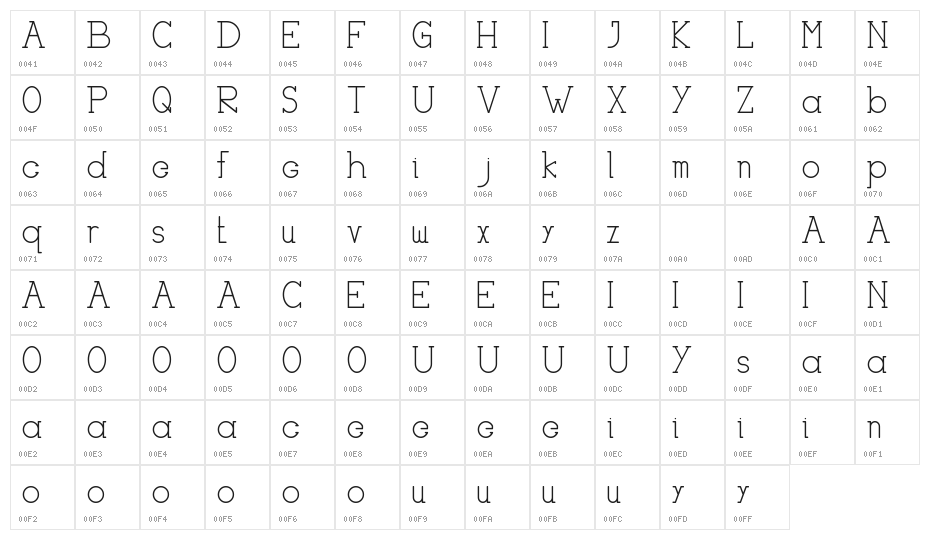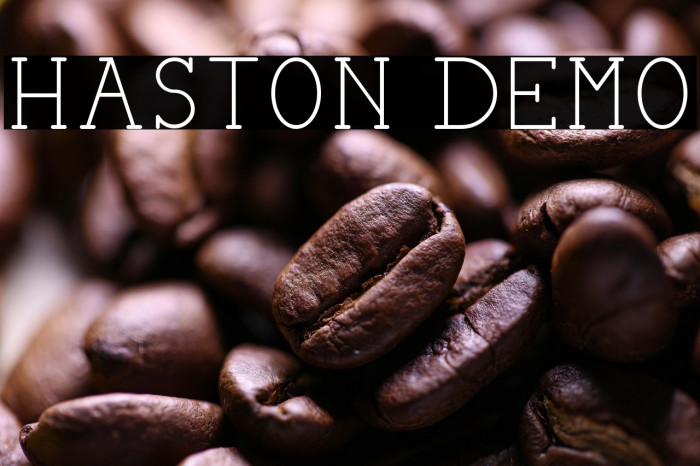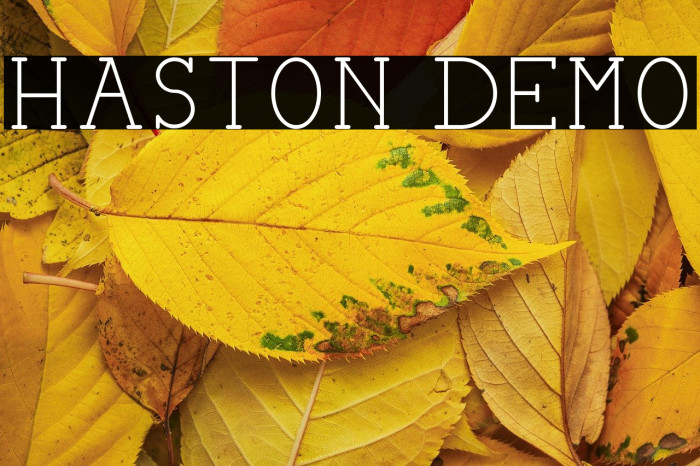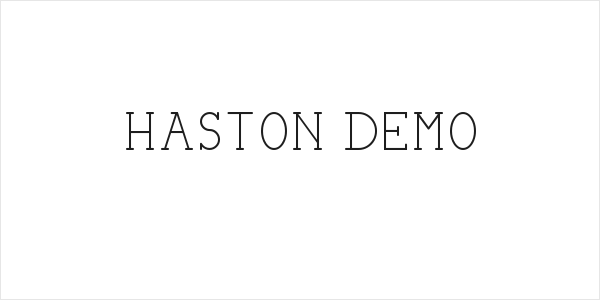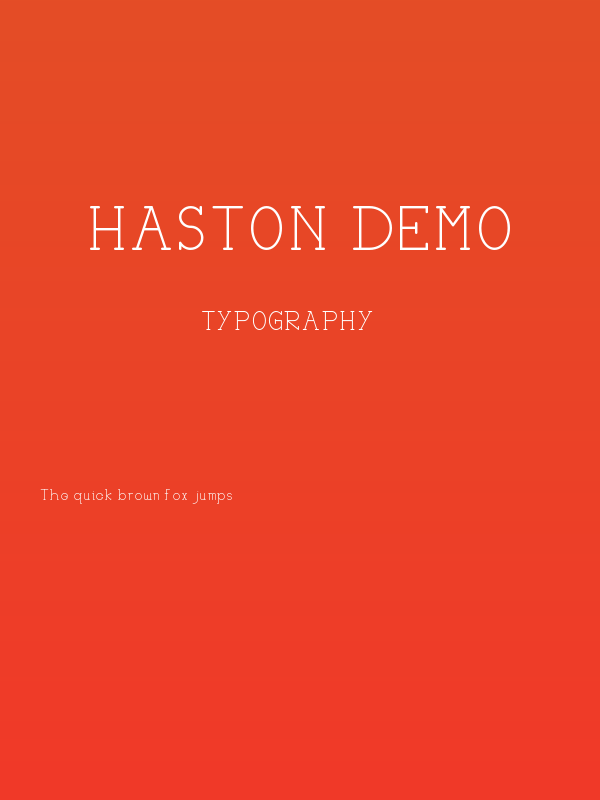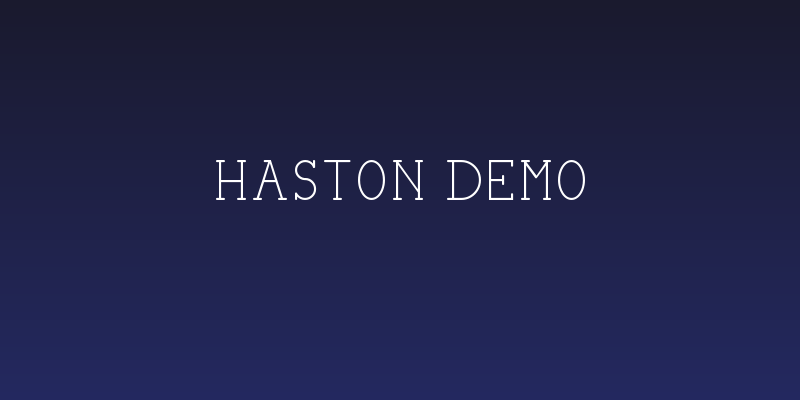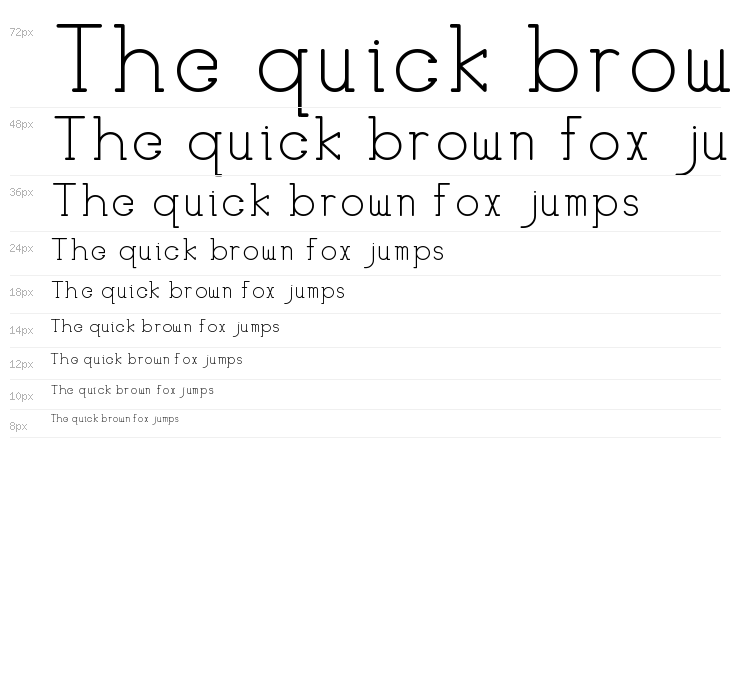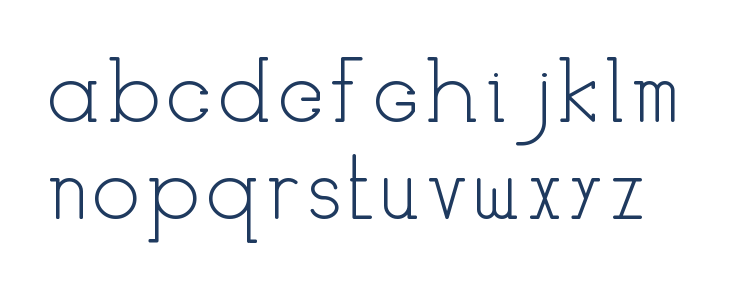
HASTON DEMO Font
HASTON DEMO Description
This font features a unique blend of geometric and modern elements, characterized by its clean lines and minimalistic design. The uppercase letters are distinct with a slight curvature, giving them a contemporary yet approachable feel. The lowercase letters maintain a consistent style, with rounded edges that enhance readability. The numerals are clear and straightforward, complementing the overall aesthetic. Special characters are well-integrated, maintaining the font's cohesive look. This font is versatile, suitable for various design projects that require a modern and clean appearance.
Proposed ProjectsIdeal for branding, digital media, advertising, and editorial design projects.